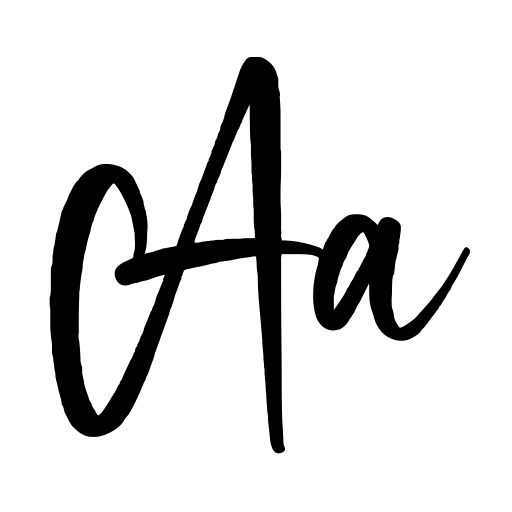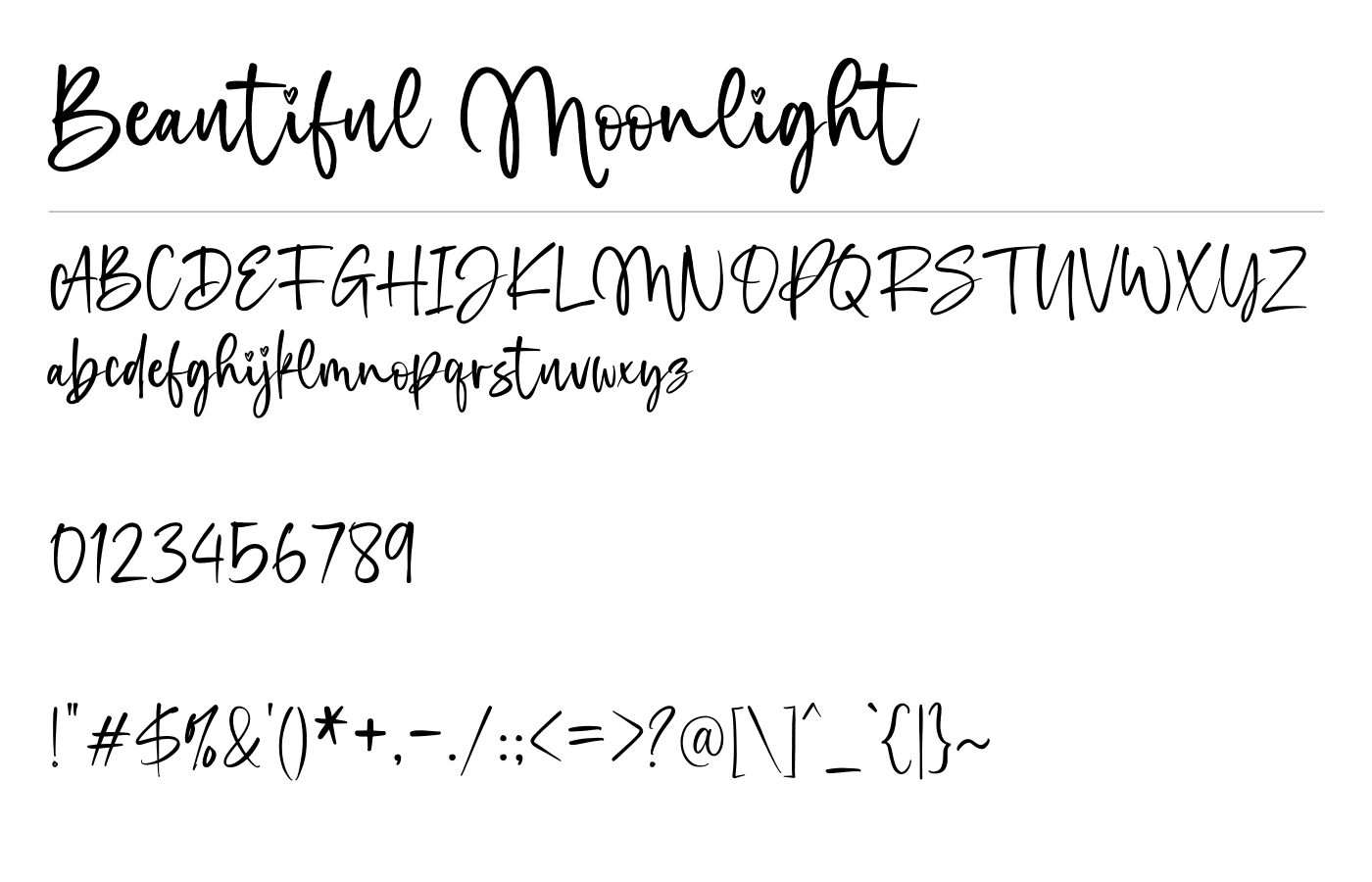
Beautiful Moonlight is a lively, handwritten script font with a casual, playful vibe. Its smooth, flowing strokes and delicate heart-shaped details add a warm, personal touch, making it perfect for creative projects like greeting cards, branding, and social media graphics that seek a friendly, charming appeal. This font works especially well for expressive headlines and invitations where a lighthearted, approachable style is desired.
Beautiful Moonlight Font
About Beautiful Moonlight Font
| Font family | Beautiful Moonlight Font |
| Designer | Fargun Studio |